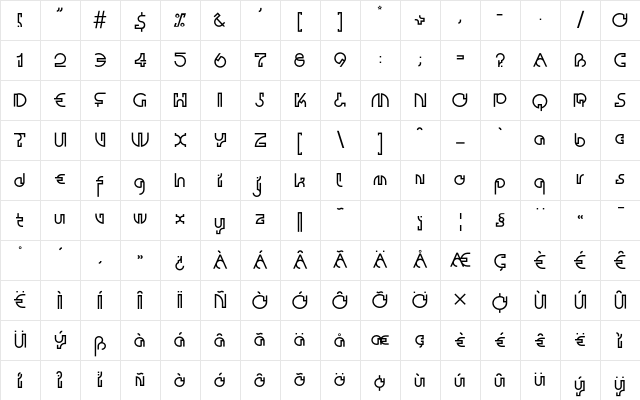
ContactaLL Regular
Design Context for ContactaLL
ContactaLL is a composed and adaptable typeface that performs quietly and consistently across a wide range of design contexts.